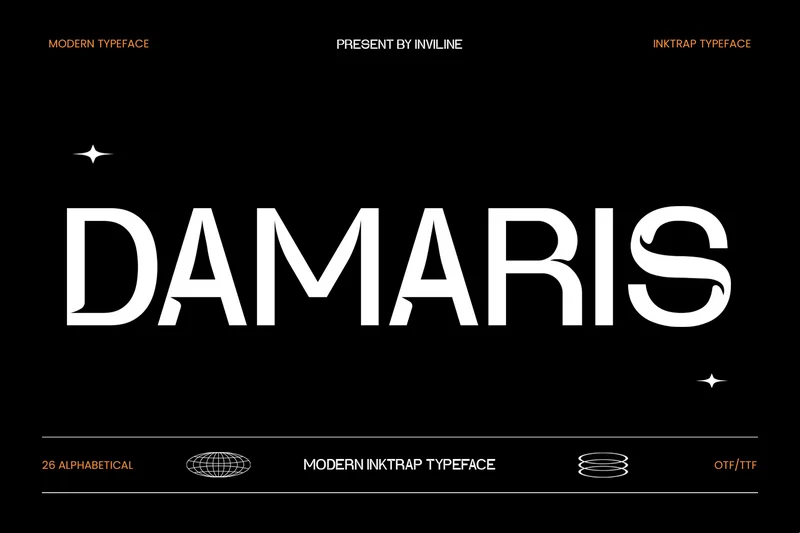
Damaris – Ink Trap Font
Damaris is a modern ink trap typeface with bold character and sleek detailing. Designed with precision, this display font embraces sharp ink traps to create a futuristic yet grounded personality. It brings a mix of retro modularity and contemporary edge, making it perfect for strong typographic statements.
Every glyph is crafted to stand out—whether it’s used in headlines, editorial designs, tech branding, or visual identities that need a distinct punch. Damaris commands attention with its minimalist style and unexpected curves, combining utility and personality into one cohesive typeface.
Uppercase & Lowercase Letters
Numbers & Punctuations
Unique Ink Trap Style
Alternate Characters & Ligatures
Clean, Bold, & Modular Construction